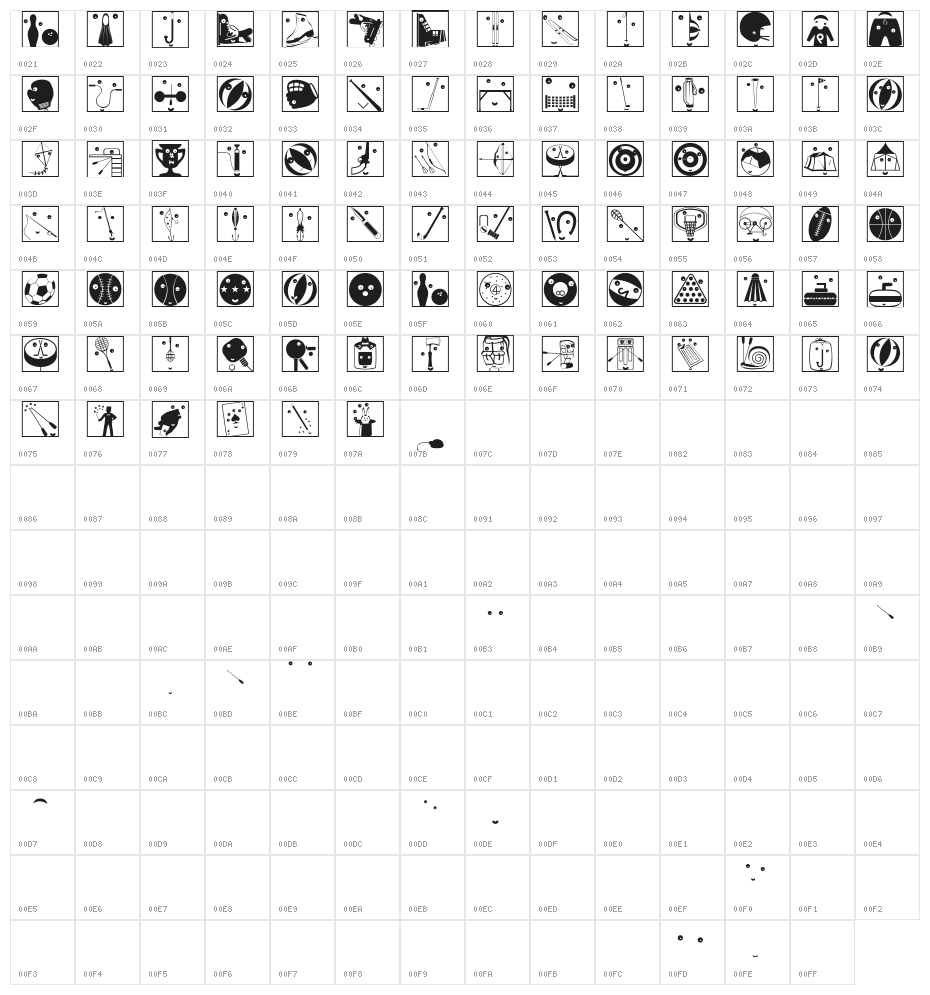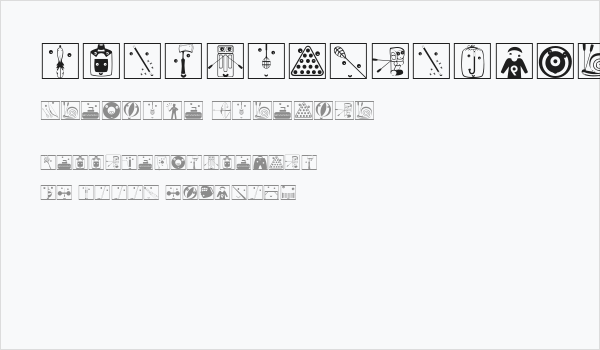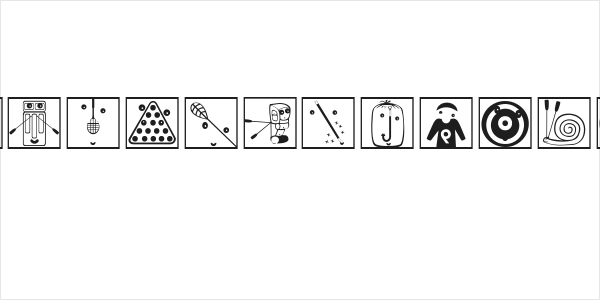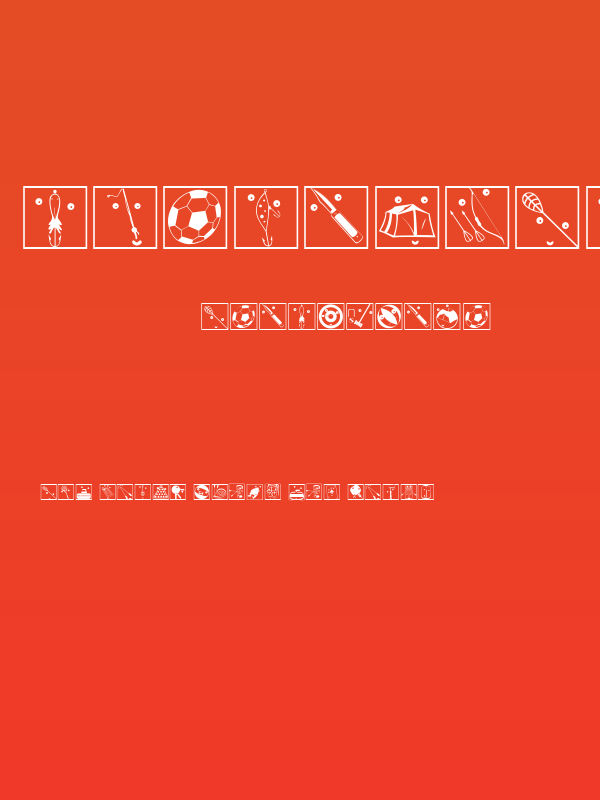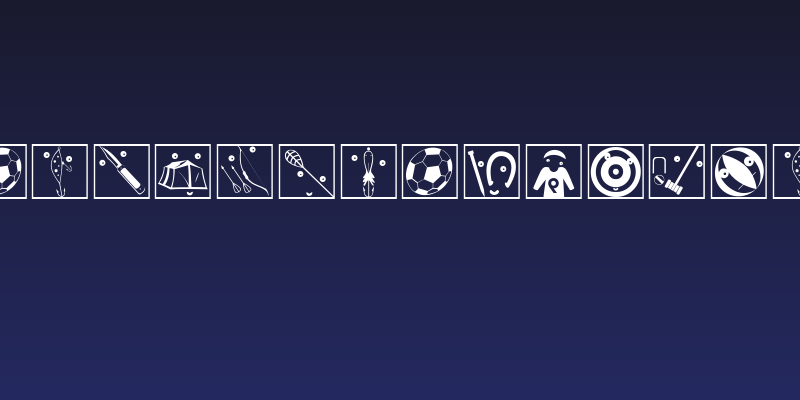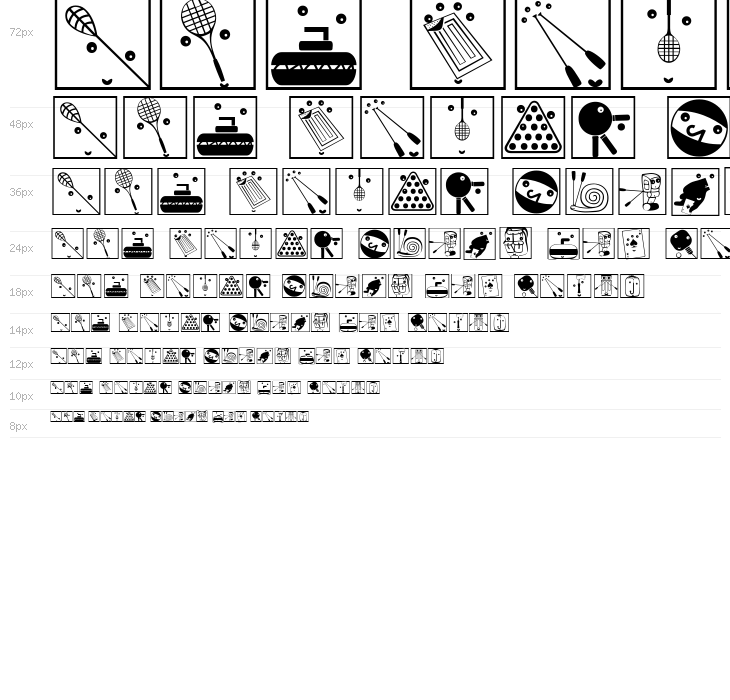
OlympicToys-Framed Font
OlympicToys-Framed Description
This collection features a playful and whimsical set of icons representing various sports and activities. Each character is creatively designed with a minimalist approach, using simple geometric shapes and lines to convey the essence of each sport. The icons are framed, adding a structured and uniform appearance. The style is modern and abstract, with a touch of humor and creativity, making it suitable for projects that aim to engage a younger audience or add a fun element to the design. The icons are versatile and can be used in various contexts, from educational materials to promotional content.
| Overall Style | Modern, Playful |
| Use Case | Logos, Illustrations, Educational Materials |
| Proposed Projects | Ideal for educational materials, sports event promotions, children's books, and playful branding projects. |